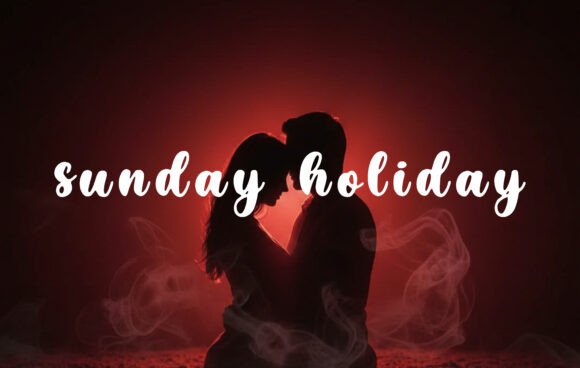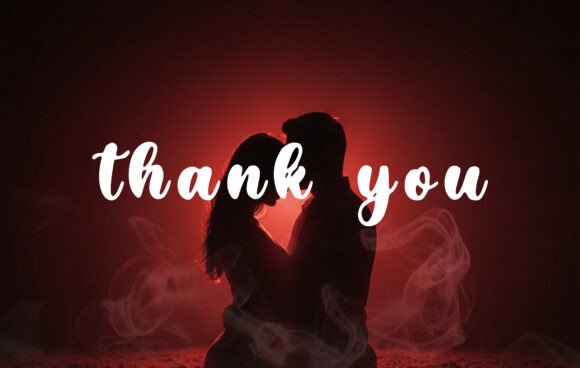
Affection Font: The Ultimate Choice for Romantic and Expressive Designs
Are you looking for a font that can convey warmth and genuine emotion in your designs? Look no further than the Affection Font, a romantic and expressive handwritten script font that is perfect for a variety of projects. In this article, we’ll take a closer look at the characteristics of the Affection Font, its uses, and why it’s a great choice for designers and crafters.
What is Affection Font?
Affection Font is a beautifully crafted handwritten script font that exudes warmth and genuine emotion. Its thick, smooth strokes and lively, flowing baseline give it a confident, authentic, and inviting signature style that is sure to capture the hearts of your audience. Whether you’re designing wedding invitations, Valentine’s Day cards, or romantic branding materials, the Affection Font is the perfect choice.
Characteristics of Affection Font
The Affection Font has several characteristics that make it stand out from other fonts. Some of its key features include:
- Thick, smooth strokes: The Affection Font features thick, smooth strokes that give it a luxurious and elegant feel.
- Lively, flowing baseline: The font’s lively, flowing baseline adds a touch of whimsy and playfulness to your designs.
- Confident, authentic, and inviting signature style: The Affection Font has a confident, authentic, and inviting signature style that is perfect for a variety of projects.
Uses of Affection Font
The Affection Font is a versatile font that can be used for a variety of projects, including:
- Wedding invitations: The Affection Font is perfect for wedding invitations, as it conveys warmth and genuine emotion.
- Valentine’s Day designs: The font is also great for Valentine’s Day designs, as it adds a touch of romance and whimsy.
- Romantic branding: The Affection Font is a great choice for romantic branding materials, such as logos, business cards, and letterheads.
- Custom gifts: The font is also perfect for custom gifts, such as personalized mugs, t-shirts, and tote bags.
- Any project that needs a strong, heartfelt, and gracefully handwritten touch: The Affection Font can be used for any project that needs a strong, heartfelt, and gracefully handwritten touch.
Why Choose Affection Font?
There are several reasons why you should choose the Affection Font for your designs. Some of the benefits of using this font include:
- Unique and expressive: The Affection Font is a unique and expressive font that will add a touch of personality to your designs.
- Elegant and sophisticated: The font’s elegant and sophisticated design makes it perfect for high-end branding and designs.
- Easy to read: The Affection Font is easy to read, even in small sizes, making it perfect for a variety of applications.
- Versatile: The font is versatile and can be used for a variety of projects, from wedding invitations to custom gifts.
Tips for Using Affection Font
Here are some tips for using the Affection Font in your designs:
- Use it for headlines and titles: The Affection Font is perfect for headlines and titles, as it adds a touch of elegance and sophistication.
- Pair it with a simple font: Pair the Affection Font with a simple font, such as Arial or Helvetica, to create a beautiful contrast.
- Experiment with different colors: Experiment with different colors to find the perfect combination that works with your design.
- Use it sparingly: Use the Affection Font sparingly, as it can be overwhelming if used too much.
In conclusion, the Affection Font is a romantic and expressive handwritten script font that is perfect for a variety of projects. Its thick, smooth strokes and lively, flowing baseline give it a confident, authentic, and inviting signature style that is sure to capture the hearts of your audience. Whether you’re designing wedding invitations, Valentine’s Day cards, or romantic branding materials, the Affection Font is the perfect choice. So why wait? Download the Affection Font today and start creating beautiful designs that convey warmth and genuine emotion.